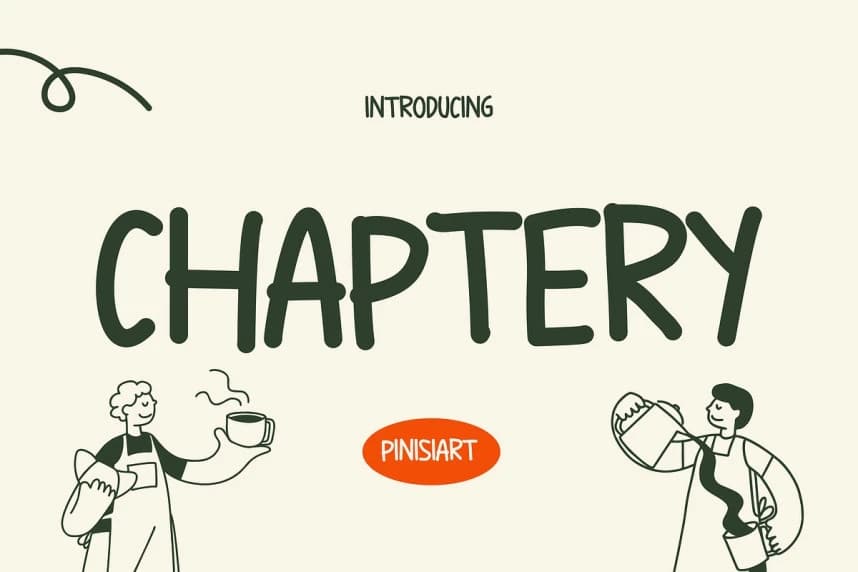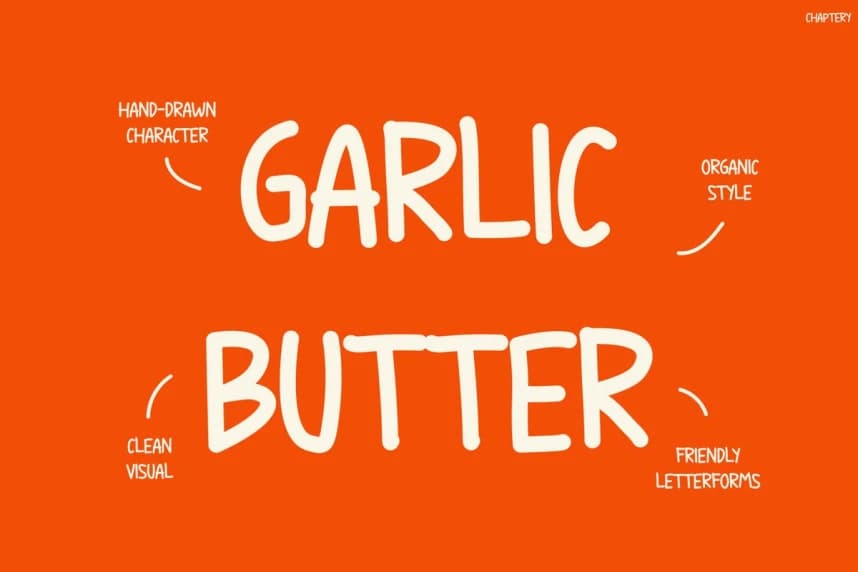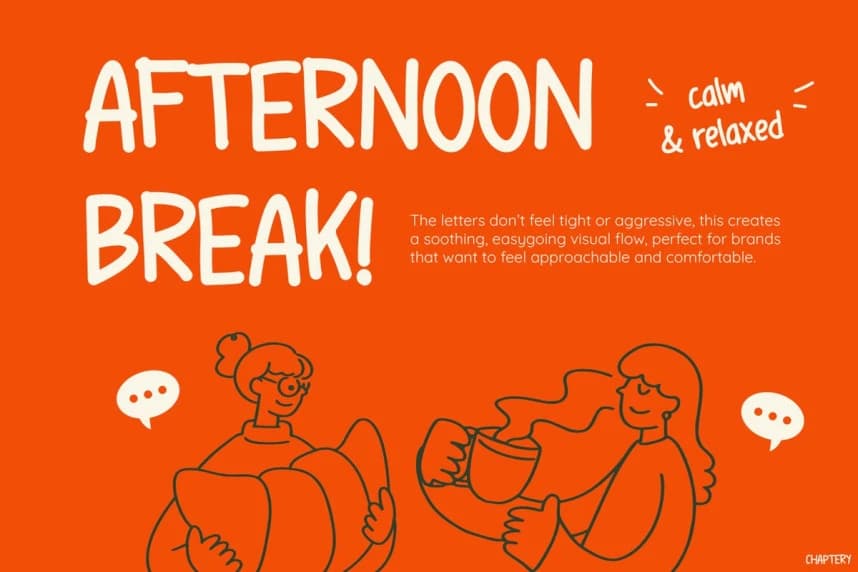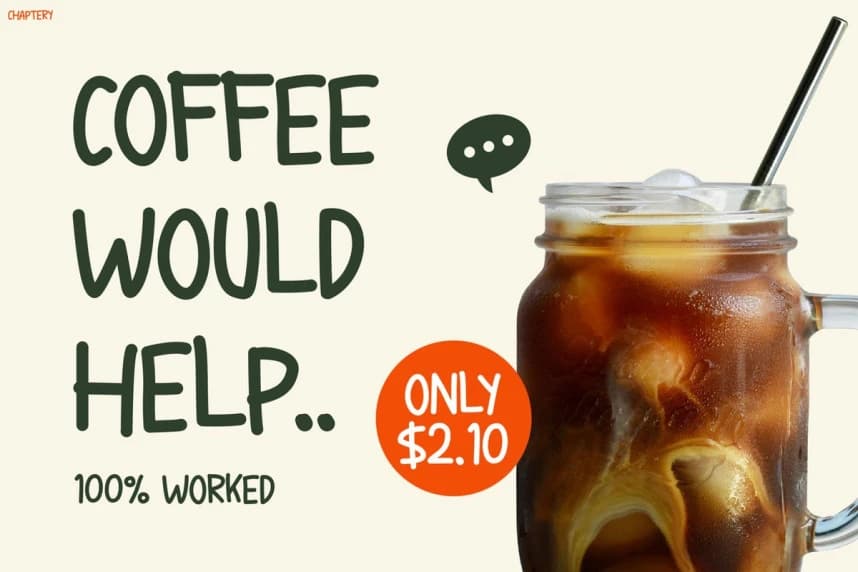
Chaptery Playful Font
Chaptery Playful Font is a warm, handwritten display typeface that blends playful charm with a cozy, café-inspired aesthetic. At first glance, its soft curves and slightly uneven strokes immediately create a natural, human touch.